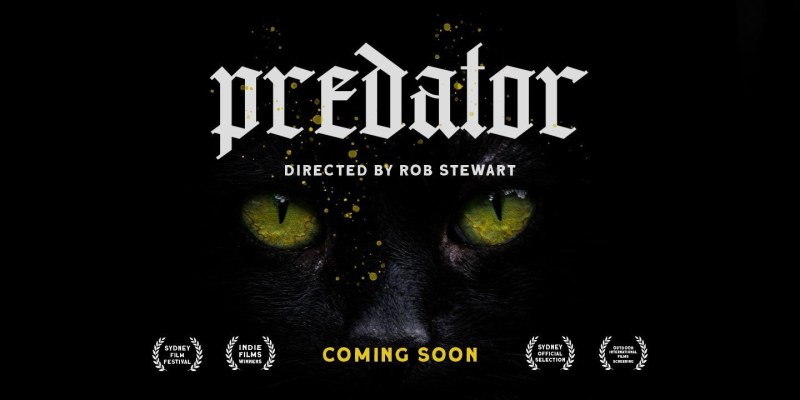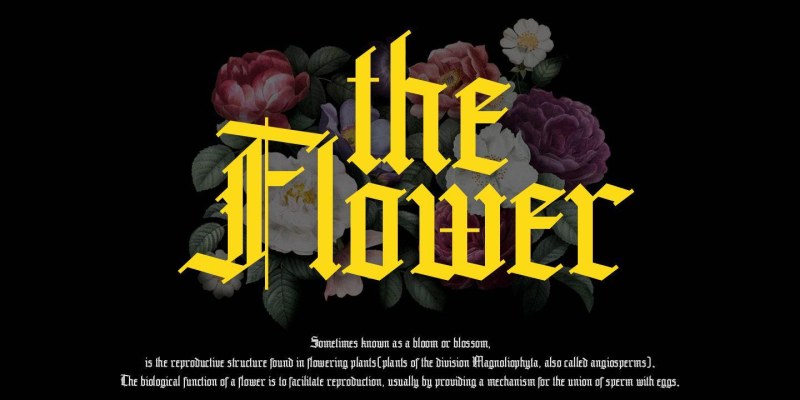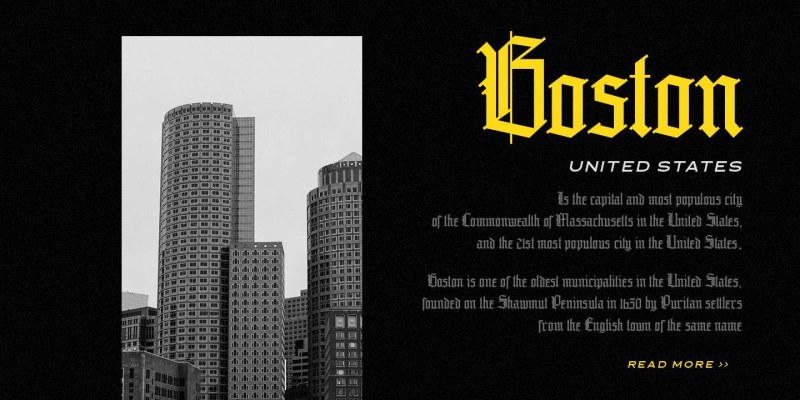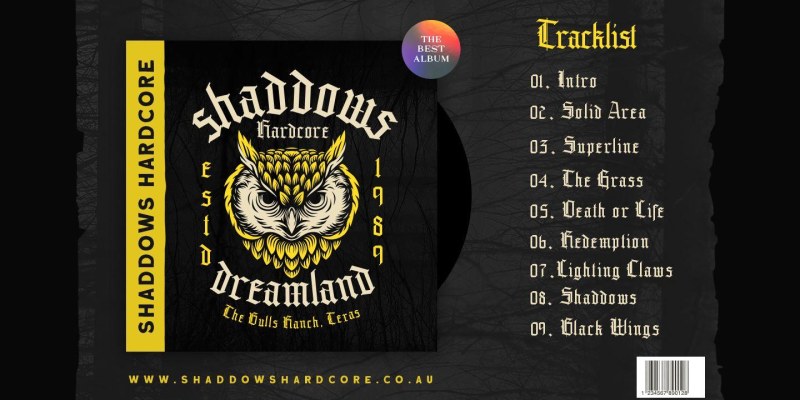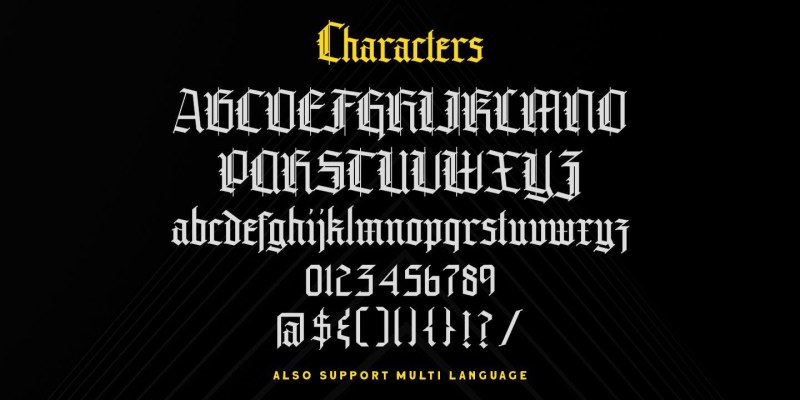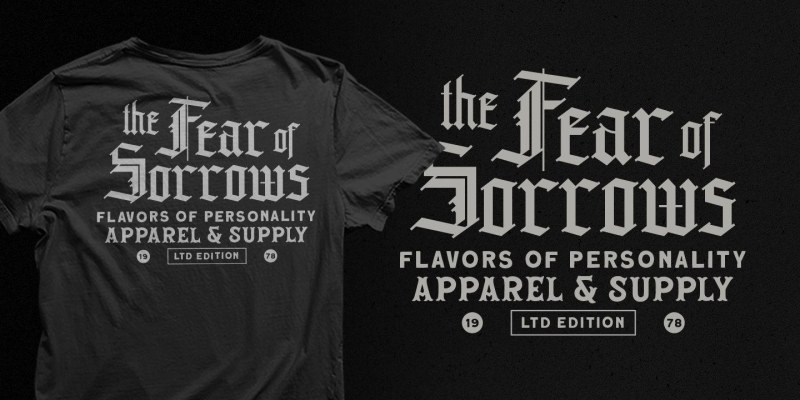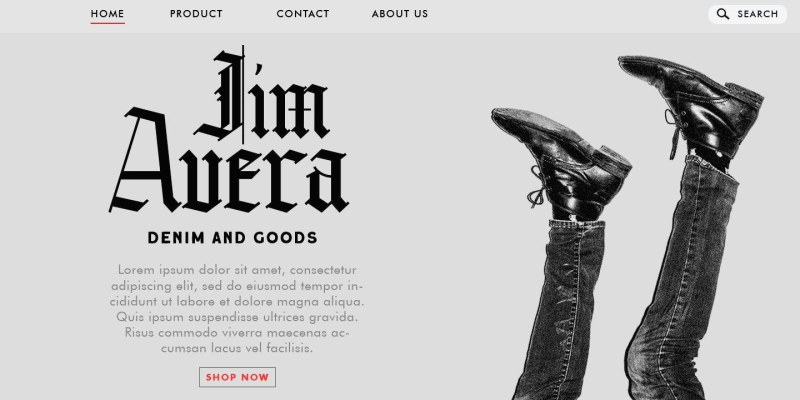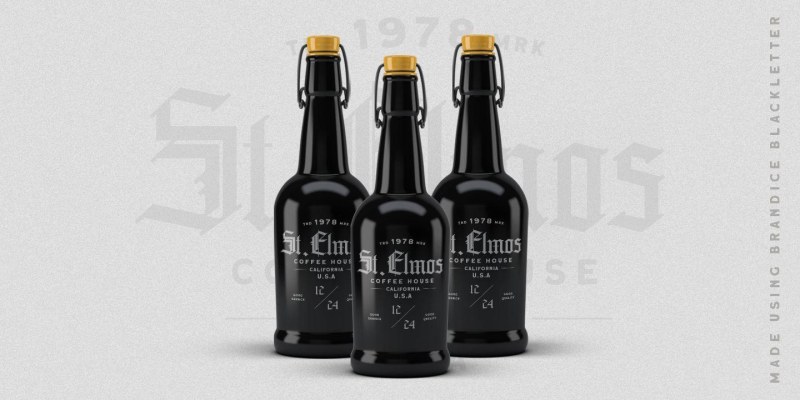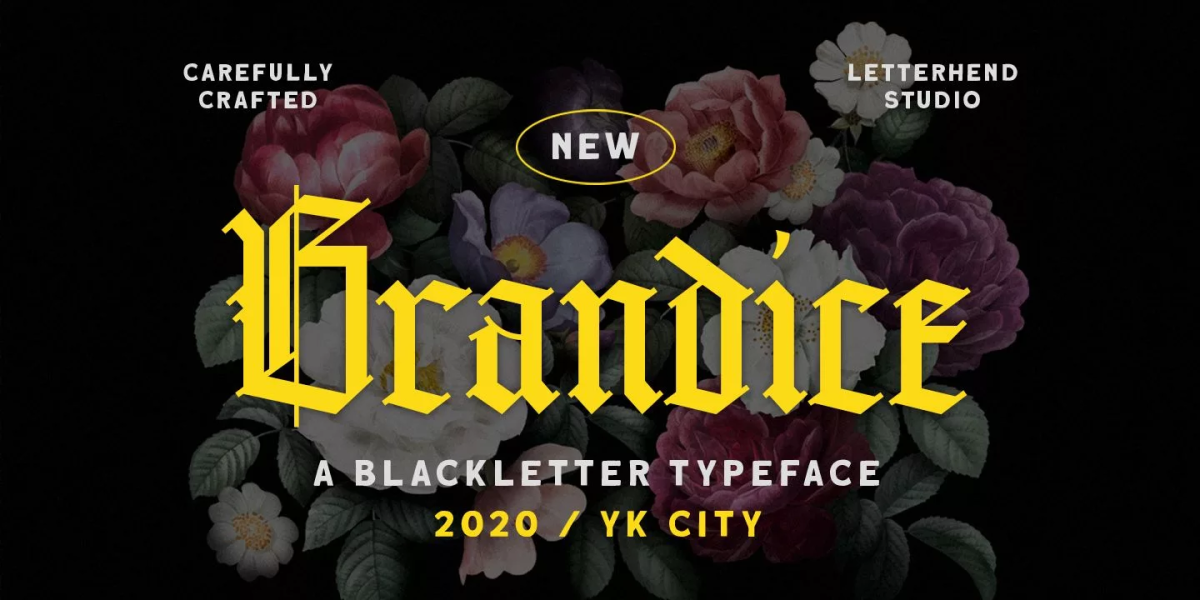
Brandice Font
Introducing, Brandice- A blackletter typeface. This type of font perfectly made to be applied especially in logo, and the other various formal forms such as Logo, Clothing, Fashion, Headline, or any type of advertising purpose.
Brandice Font is a Typeface font that brings a professional and versatile look to your projects. Introducing, Brandice- A blackletter typeface.